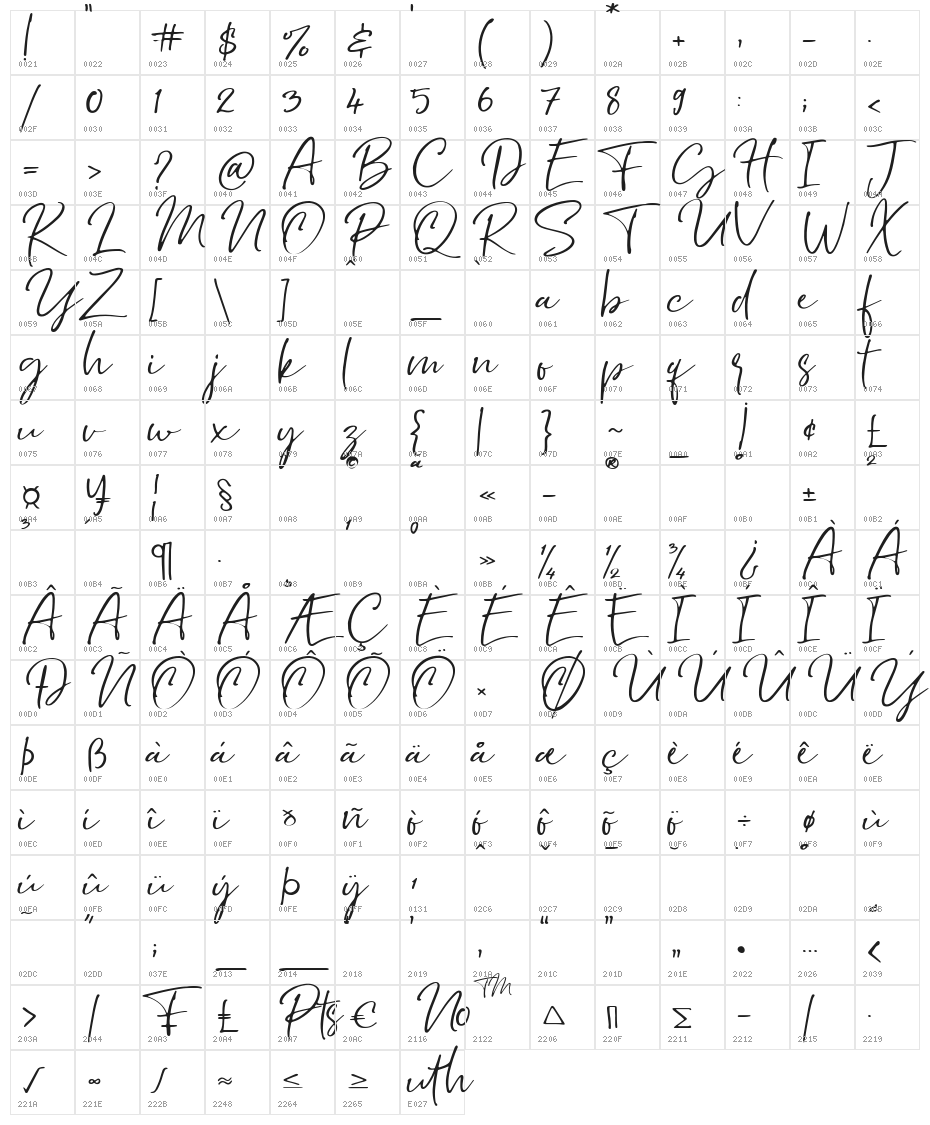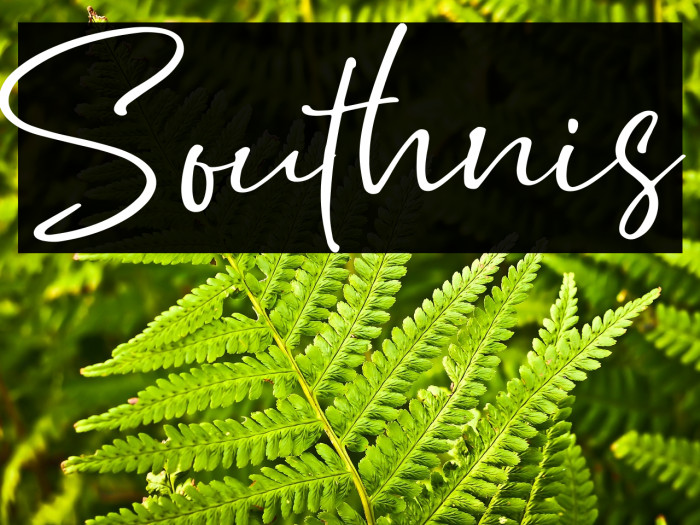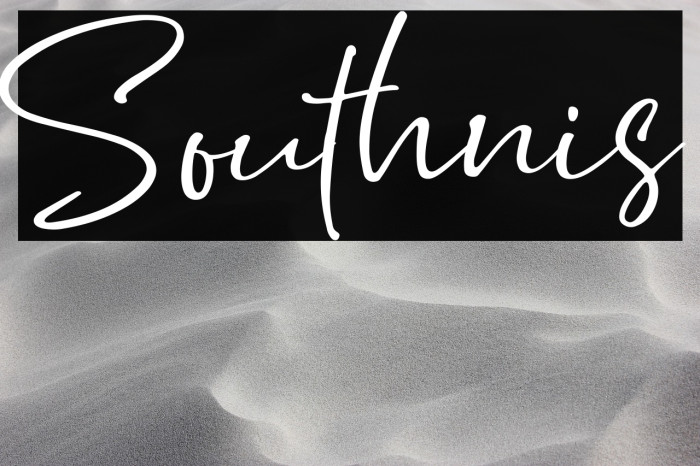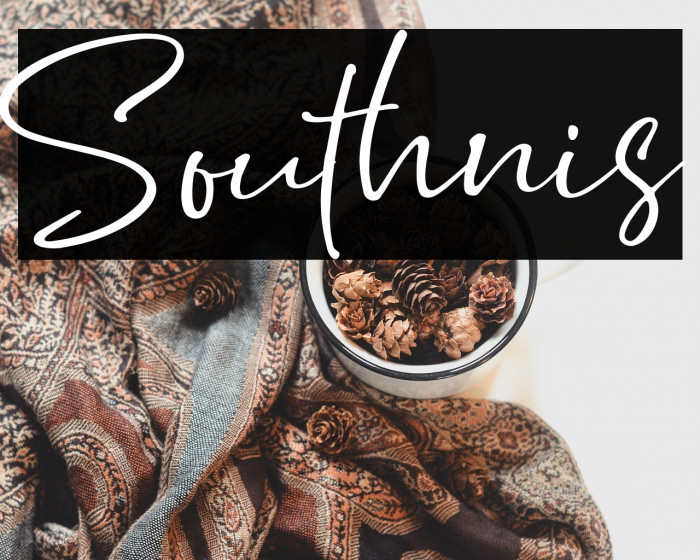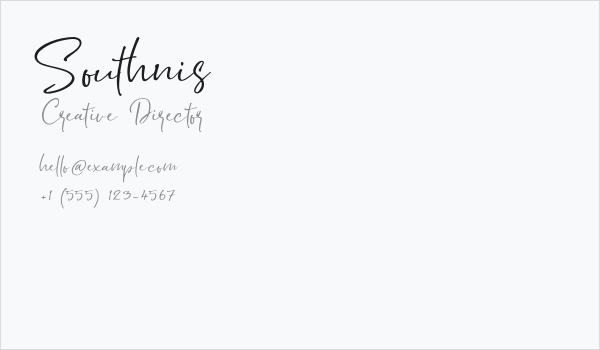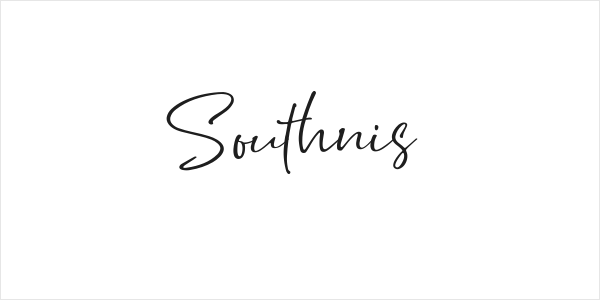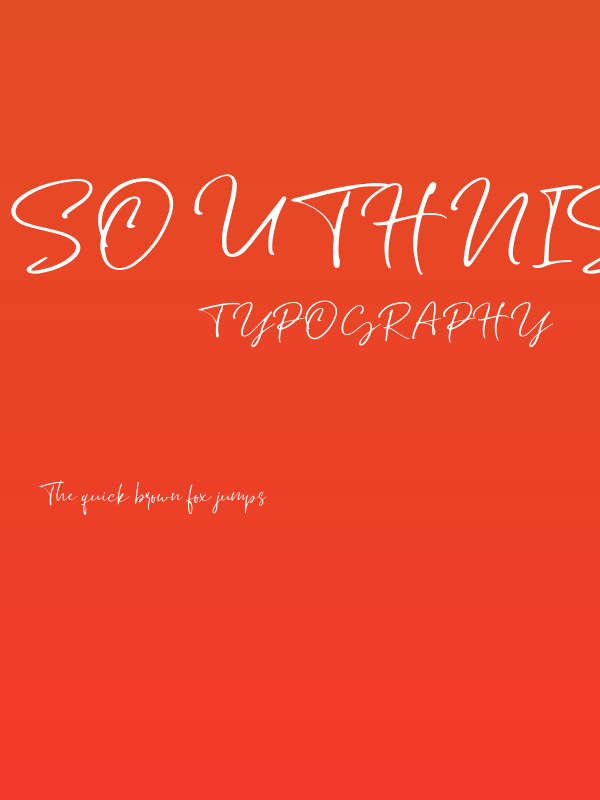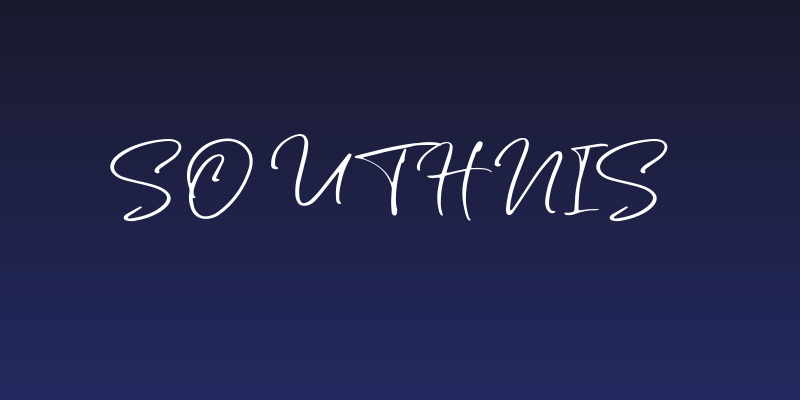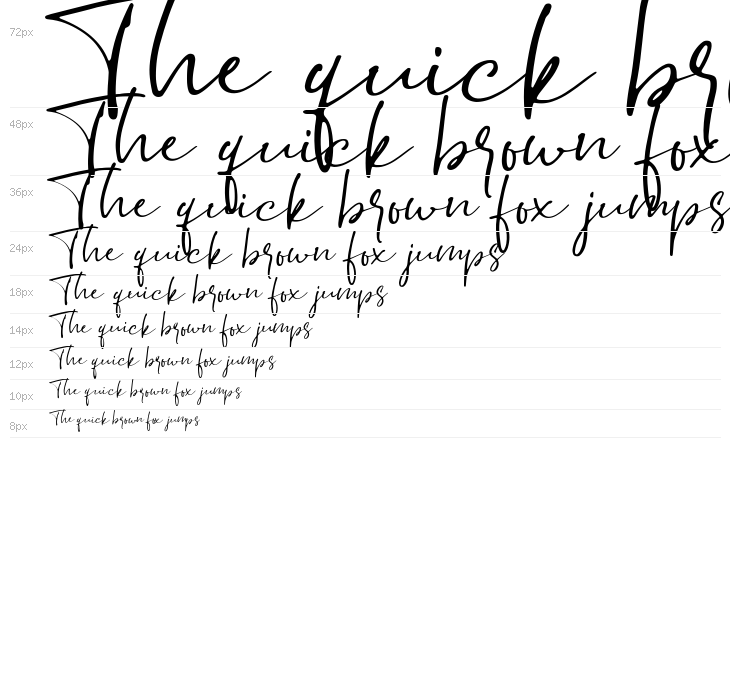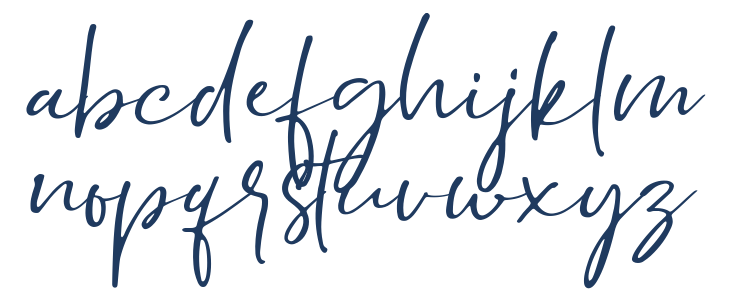
Southnis Font
Southnis Description
This font features a dynamic and fluid script style, characterized by its elegant and flowing letterforms. The uppercase letters exhibit a graceful, cursive appearance with smooth curves and a slight slant, while the lowercase letters maintain a consistent, handwritten feel. The numerals are designed to complement the overall script style, with a playful yet sophisticated look. Special characters are seamlessly integrated, enhancing the font's versatility. The strokes vary in thickness, adding a sense of movement and liveliness to the text.
| Proposed Projects | Ideal for wedding invitations, greeting cards, branding projects, and elegant packaging designs. |